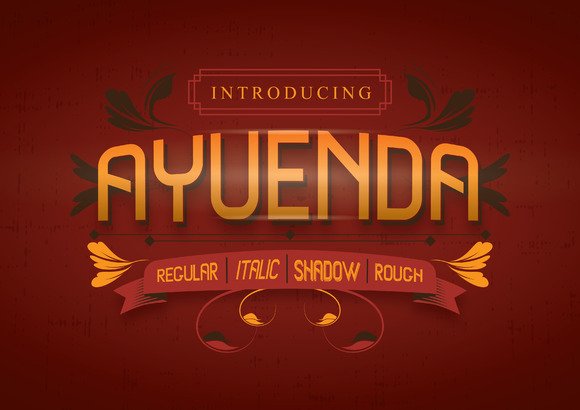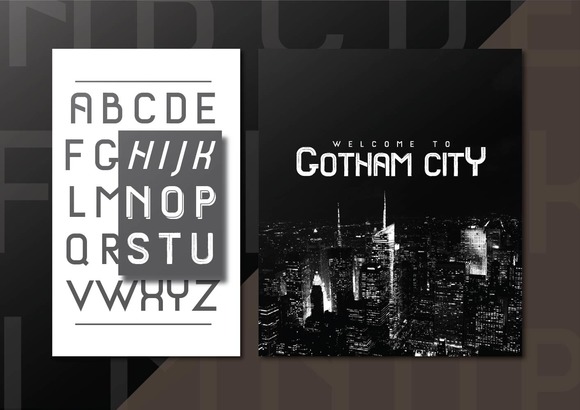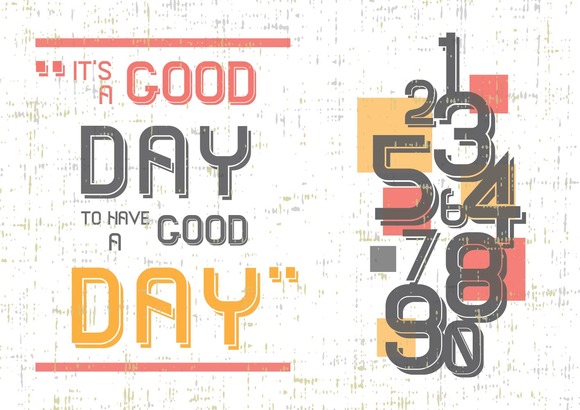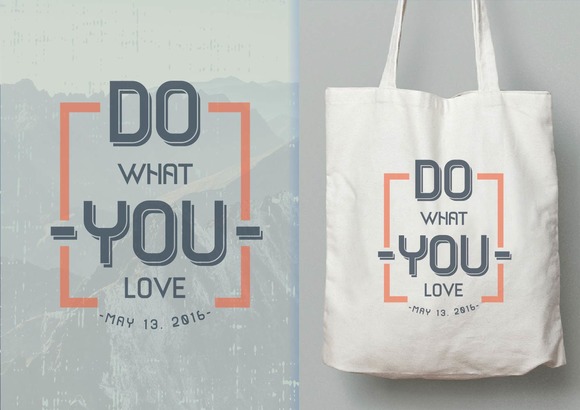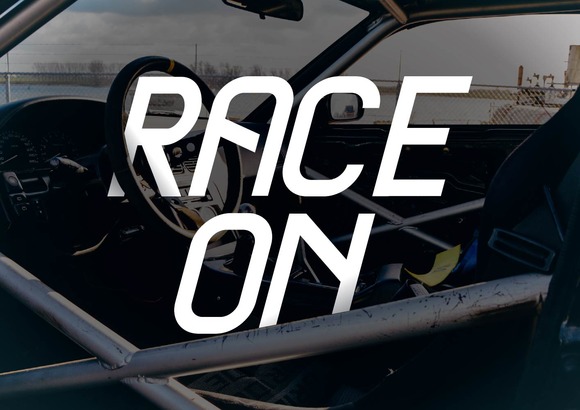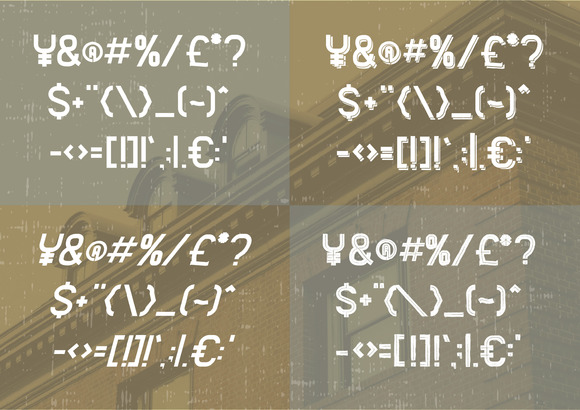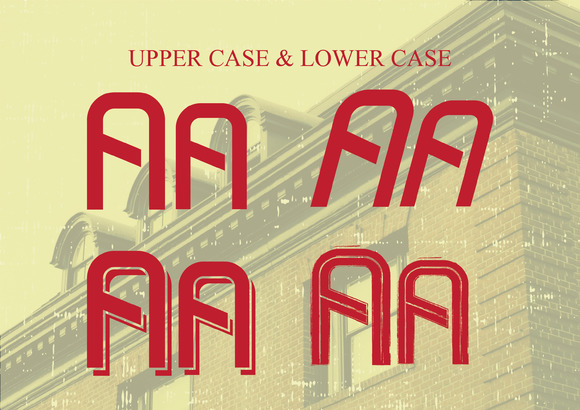
A Fresh Twist on Typography: The Story Behind Ayuenda Font
Have you ever sat in front of your computer, staring at a blank canvas, trying to conjure up the perfect font to match your creative vision? I know I have. It’s that moment when inspiration strikes, and you know exactly what you want to see – a font that’s bold, yet elegant, and speaks directly to your audience.
That’s where the Ayuenda Font comes in – a sans-serif masterpiece inspired by the beauty of Indonesian culture. This versatile font is designed to be used in a wide range of applications, from eye-catching headings and logos to heartfelt invitations and posters. Its unique blend of modernity and traditional flair makes it a valuable asset for designers looking to add a touch of personality to their work.
Ayuenda Font Key Features
- Unique Characteristics: Ayuenda Font features a distinctive, modern design with clean lines and geometric shapes, setting it apart from other sans-serif fonts.
Ayuenda Font Review
Ayuenda Font caught my attention due to its unique and modern design. ✨ I love how it combines the elegance of serif fonts with the modernity of sans-serif fonts. It’s perfect for creating a sophisticated yet trendy look for any project.
Some of the things that work well in Ayuenda Font include:
- ✨ Excellent legibility, making it perfect for body text.
- ✨ A wide range of font weights and styles to choose from.
- ✨ Suitable for both digital and print media.
- ⚠️ Some users may find the font to be too modern or trendy, which may not suit every design aesthetic.
- ⚠️ The font may not be suitable for very small text sizes due to its complex design.
Overall, I think Ayuenda Font is a great addition to any designer’s toolkit. It’s versatile, stylish, and easy to use. While it may have some limitations, the benefits far outweigh the drawbacks. If you’re looking for a modern font that will help you stand out, Ayuenda Font is definitely worth considering.
Tips for Getting the Most Out of Ayuenda Font
Here are some tips for getting the most out of Ayuenda Font:
– Use Ayuenda Font in combination with bold or italic styles to add emphasis to your text.
– Experiment with different font sizes to create visual hierarchy in your design.
– Use Ayuenda Font in conjunction with other modern sans-serif fonts to create a cohesive look.
Common Use Cases for Ayuenda Font
Ayuenda Font is suitable for a wide range of applications, including:
– Brochures and flyers
– Business cards and